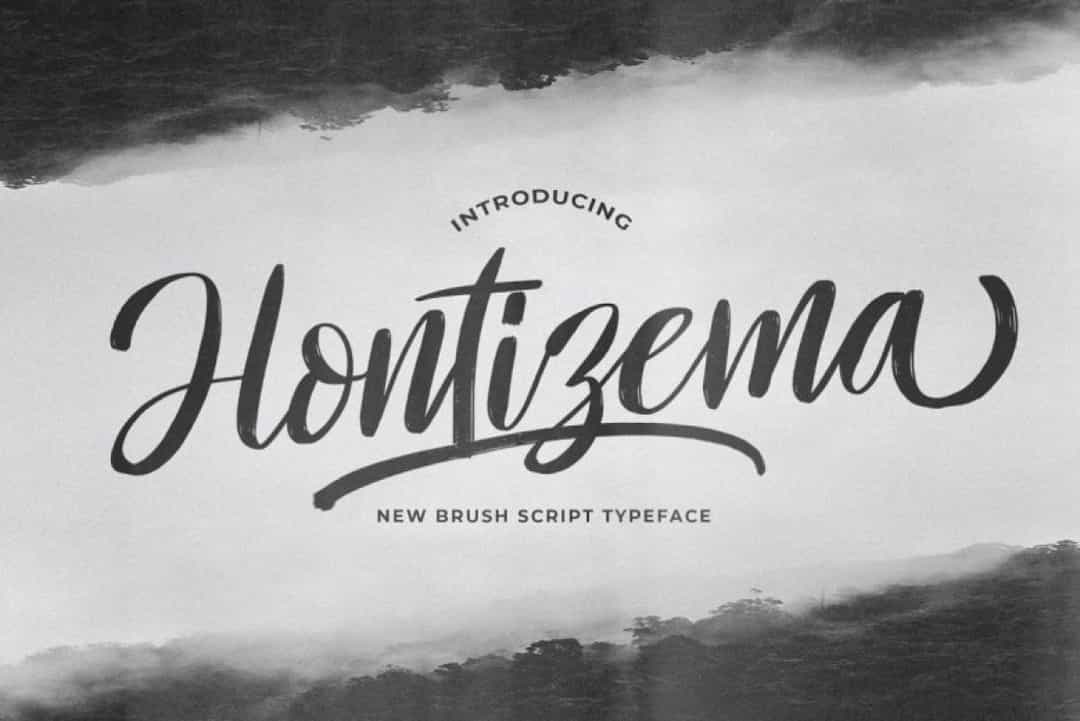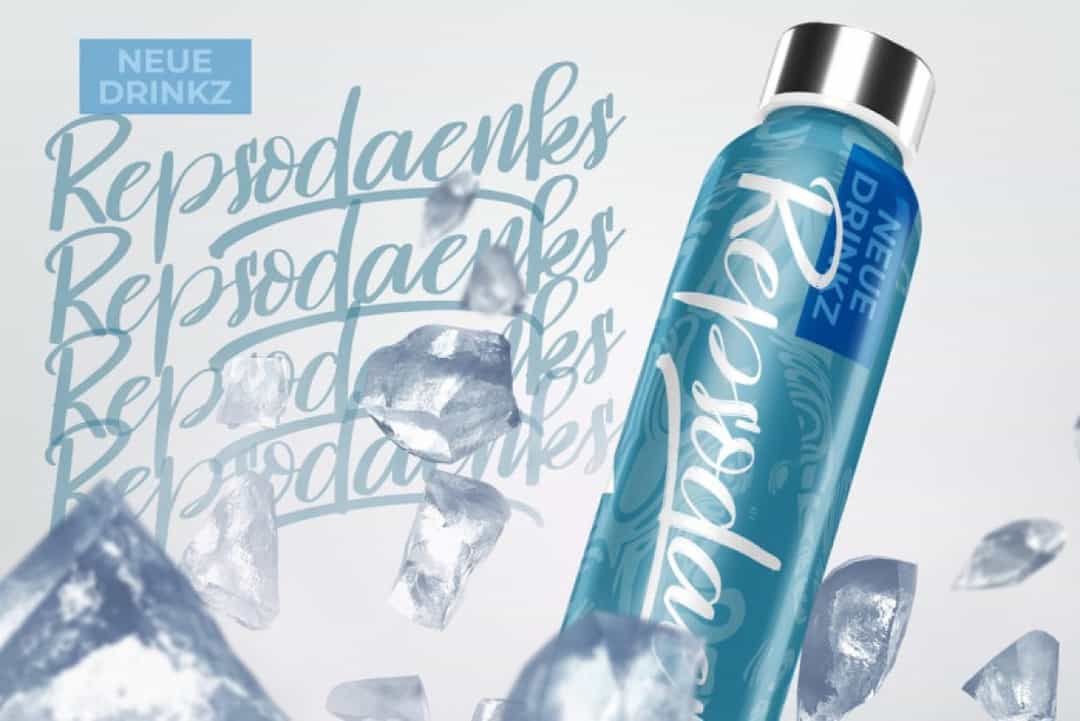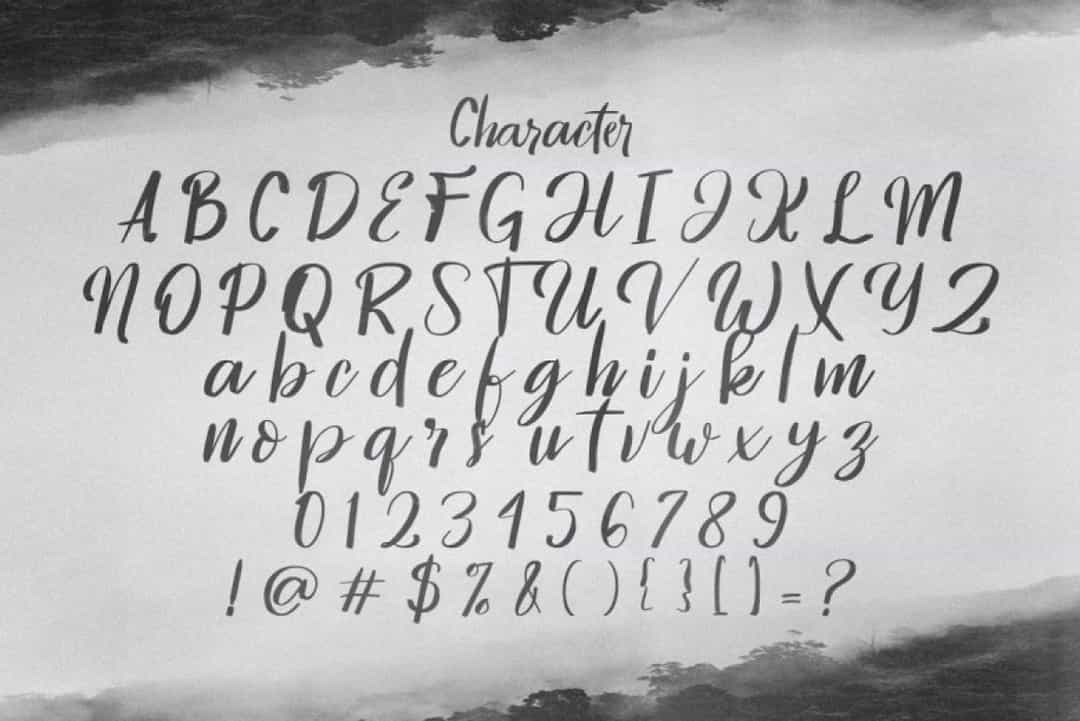
Discover Hontizema Font, part of the Brush collection—a versatile and unique font perfect for adding a personal touch to your projects. Download it for free and enjoy crafting designs with style, from invitations to social media posts. This font is available exclusively for personal use, giving you the freedom to create without limits. Unlock your creativity with Hontizema Font today!
Hontizema Brush Font can be described as a soft fluid and elegant script typeface with balanced characters that makes your designs appear more realistic! Try including this font into your designs today to experience just how lifelike they become!